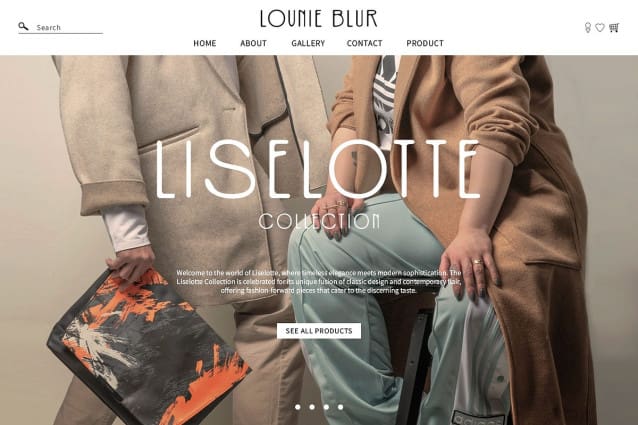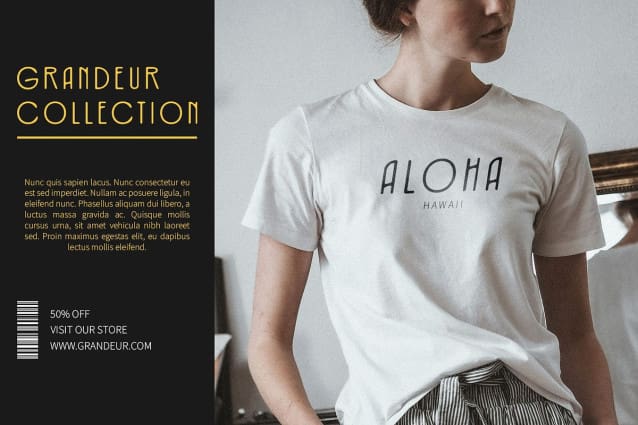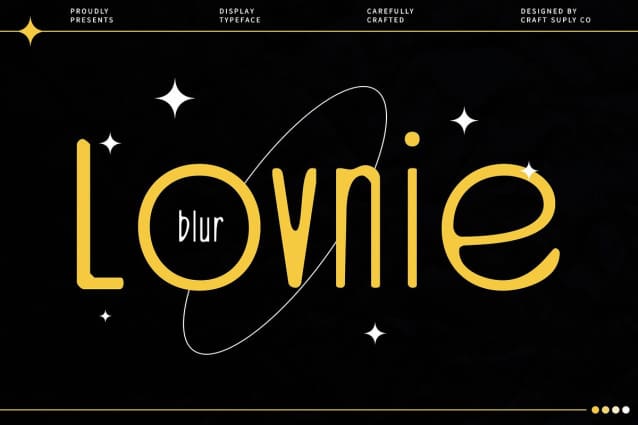
Lovnie Blur Font
Lovnie Blur Font is a modern sans serif font that captures the geometric elegance of Art Deco with a contemporary touch. Its clean and bold letterforms showcase classic sophistication, making it a timeless choice for various design projects.
Geometric Elegance and Modern Blur Effect The font’s geometric elegance is enhanced by a subtle blur effect, adding a modern and artistic dimension. This blend creates a smooth and captivating look, perfect for luxury branding.
Perfect for Luxury Branding and Editorial Design Lovnie Blur’s unique style makes it ideal for luxury branding, editorial design, and formal invitations. The font’s classic sophistication paired with modern innovation ensures a standout presence in any project.
Vintage Aesthetics with Modern Innovation This font provides a perfect blend of vintage aesthetics and modern innovation. Lovnie Blur adds a distinctive, elegant touch to any design project, making it memorable and visually appealing.